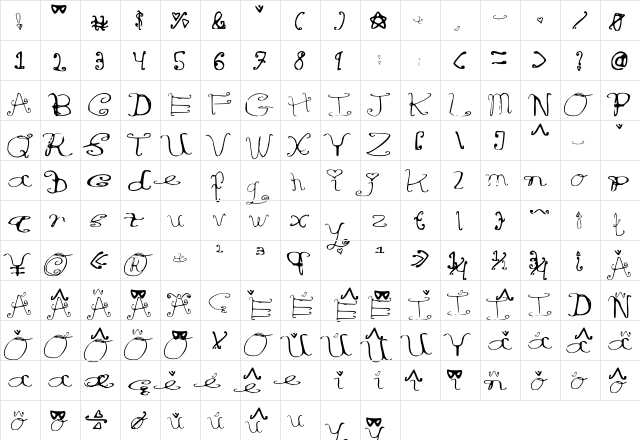
RiordonFancy Medium
Design Context for RiordonFancy Typeface
RiordonFancy is a composed and adaptable typeface that performs quietly and consistently across a wide range of design contexts.